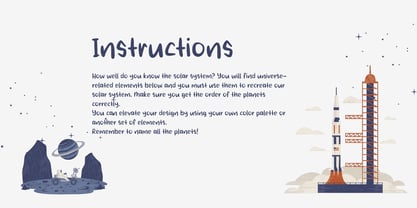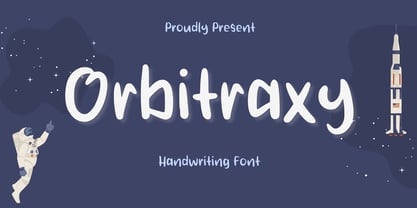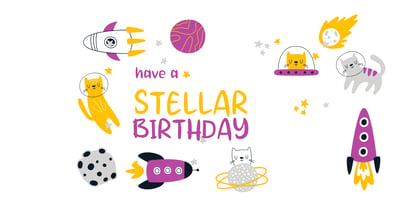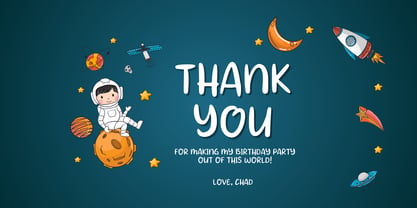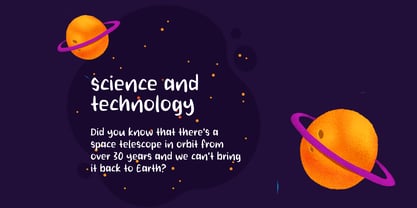
Orbitraxy
by Aisyah
The Orbitraxy Font Family was designed by Nur Aiysah Amalia and published by Aisyah. Orbitraxy contains 1 styles. More about this family
Orbitraxy Font, with its distinctive design and character, serves as the perfect accompaniment to your outer space endeavours. Whether it’s showcasing your captivating slideshows, crafting celestial birthday cards, or meticulously guiding your customers through product instructions, Orbitraxy is the key to adding that stellar touch. Every line and curve in Orbitraxy echoes the mystique of the cosmos, transforming ordinary messages into interstellar communications. Be it special or professional projects, Orbitraxy elevates each to cosmic heights.